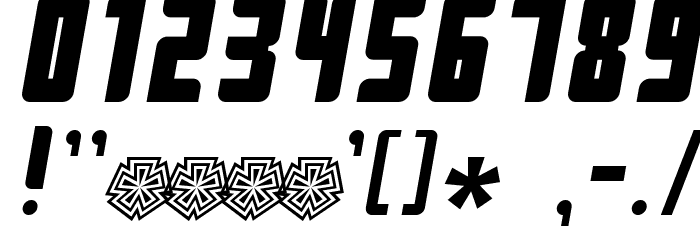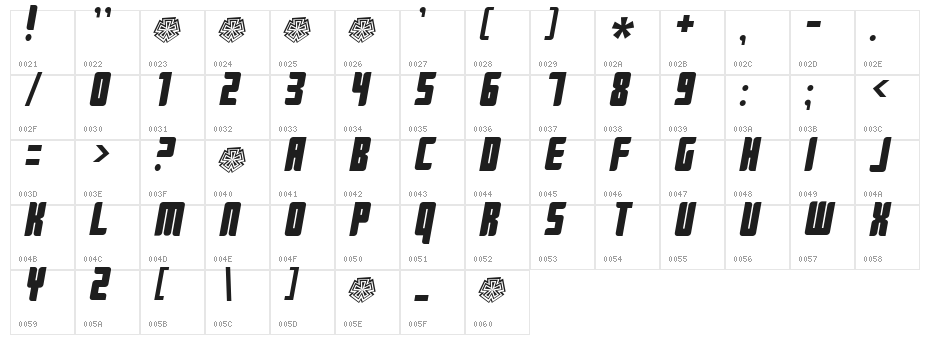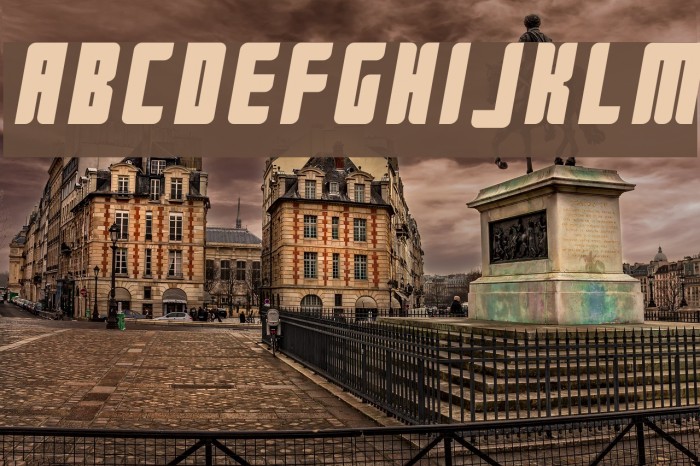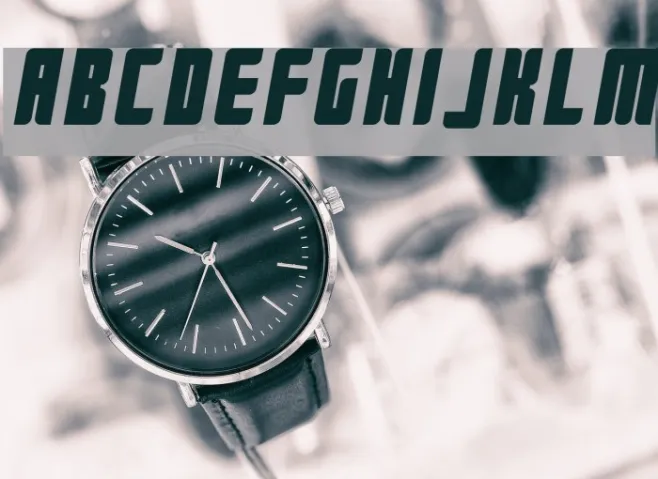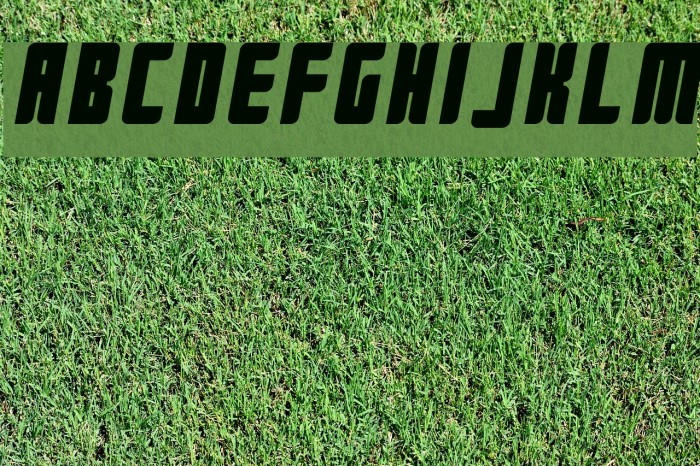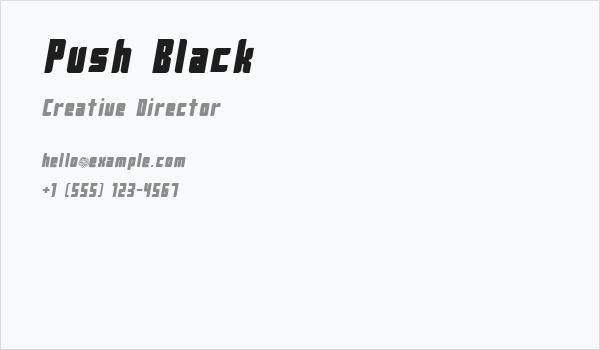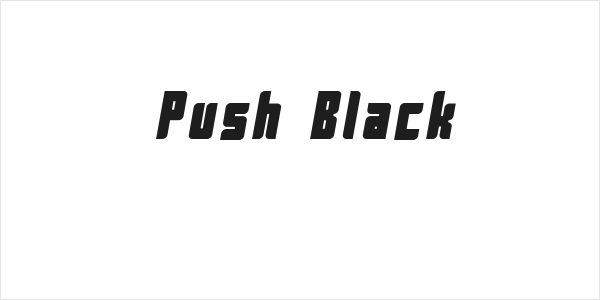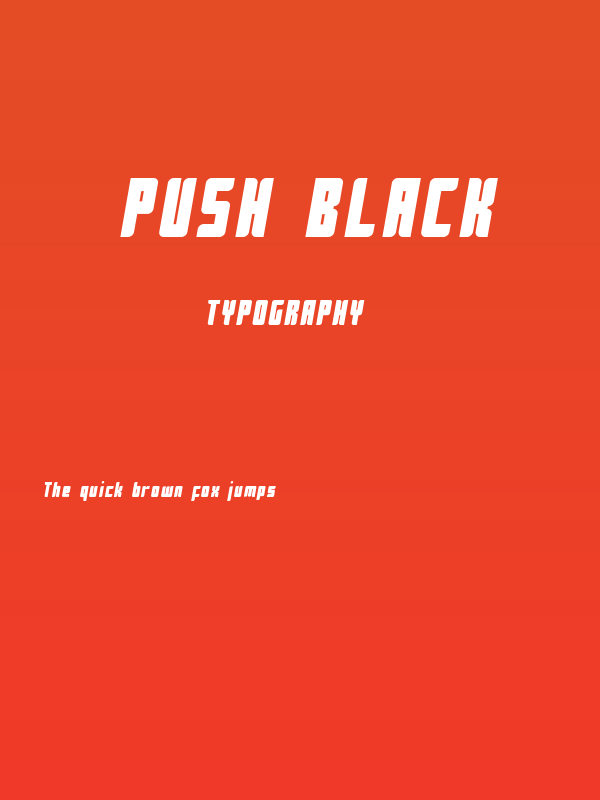
Push Black Font
Push Black Description
This font features a bold and dynamic style with a strong presence. The characters are slightly slanted, giving a sense of motion and energy. The strokes are thick and consistent, providing a robust and impactful appearance. The uppercase and lowercase letters maintain a uniform structure, while the numerals are clear and legible. Special characters are designed with the same boldness, ensuring consistency across all glyphs. This font is ideal for projects that require a strong visual impact and a modern, edgy feel.